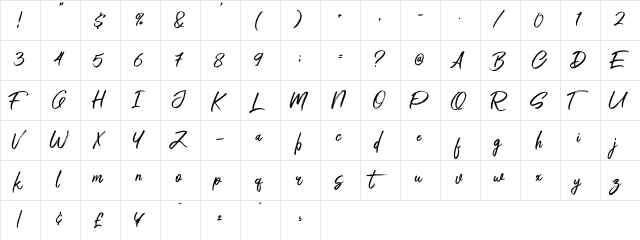
Rithem Regular
| Foundry | Khurasan |
| Designer | Khurasan |
Design Context for Rithem Typeface
Rithem is a composed and adaptable typeface that performs quietly and consistently across a wide range of design contexts.